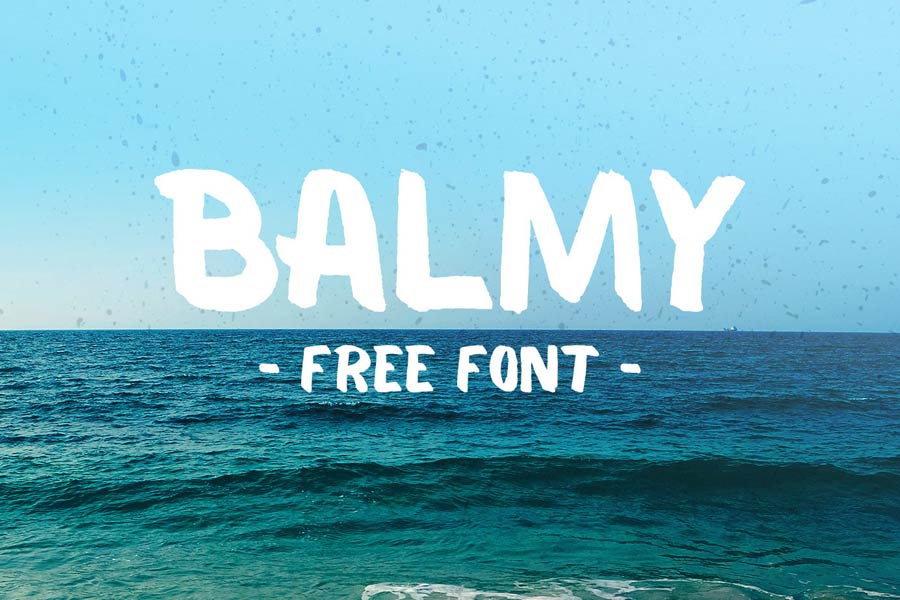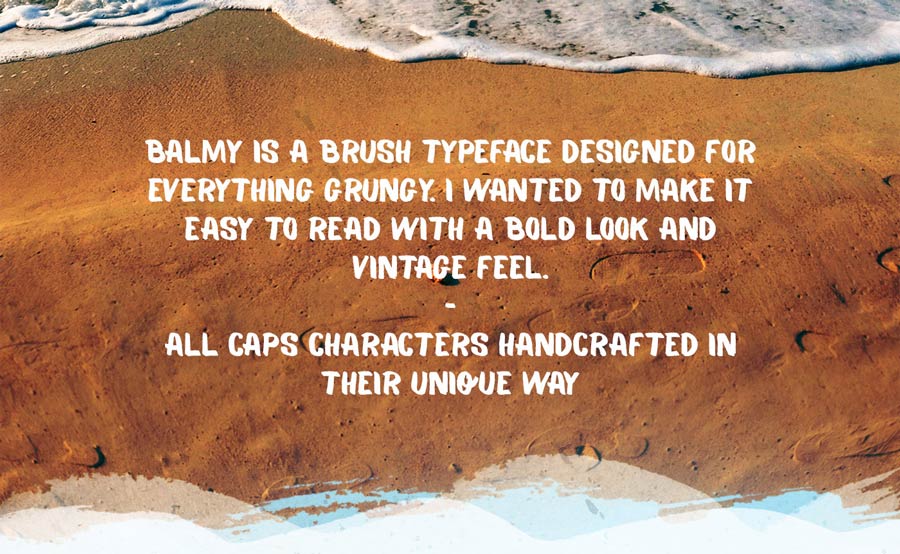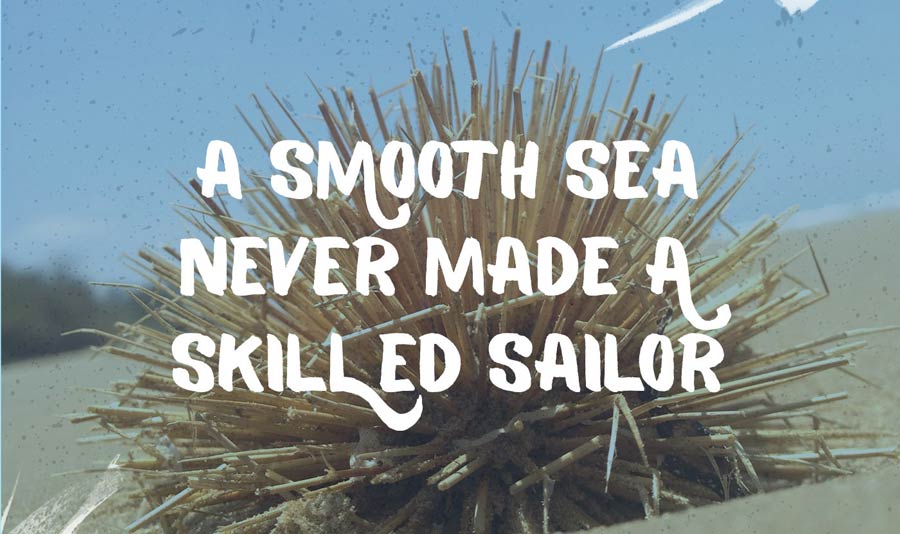
Balmy is a free brush typeface designed for everything grungy. According to the designer, he created this font to be bold, vintage feel and easy to read. The free version which is limited for personal use, comes with the basic character set, while the premium one comes with complete glyphs set, including handcrafted ligatures where some characters featuring long swashes.
Balmy is perfect for hipster designs, and suitable for anything summer and cheerful!